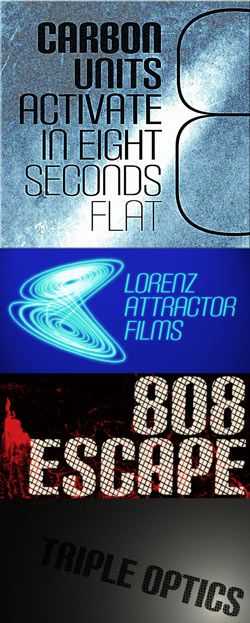
Carbon was originally created in 1999 and was overhauled a decade later. Alternate letters such as the unicase T of the original are still available as OpenType stylistic alternates. Some of the numerals and most of the punctuation has been redesigned. Accents cover more languages. Along with new weights and italics, theres Carbon Fence with a 1960s style choppy wire fence effect. Carbon includes fractions & numeric ordinals. Don't forget to read the files inside the zip for details. Updated in 2012.